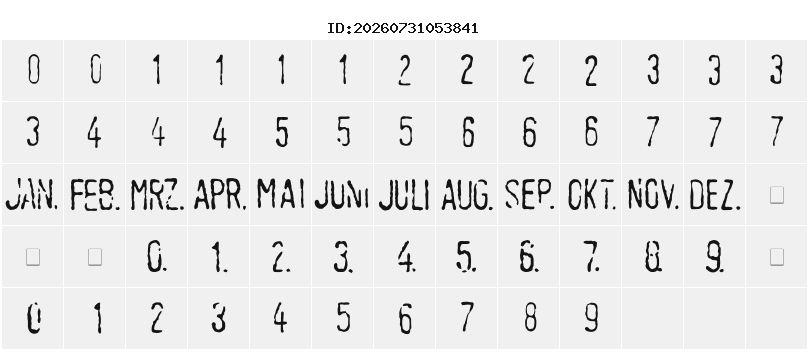
• Font Name: LTTagesstempel Mager
• Full Font Name: Linotype Tagesstempel Mager
• Designer: Georg Kugler
About LTTagesstempel Mager.ttf
LTTagesstempel Mager.ttf is a modern, elegant sans-serif font designed for ultimate readability and visual harmony. Perfect for branding, headlines, web design, and print materials.